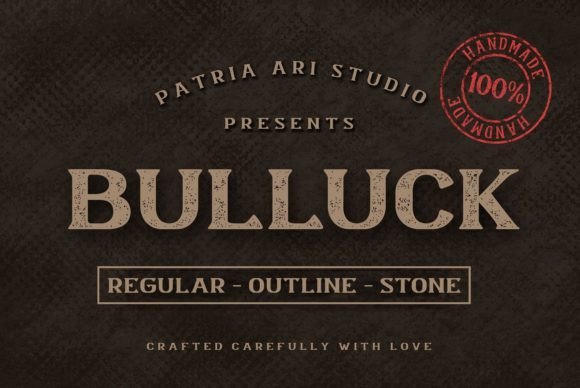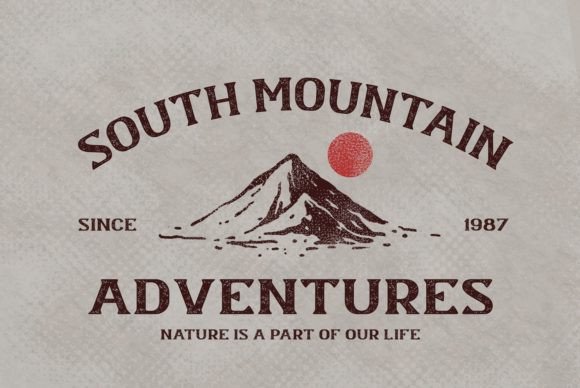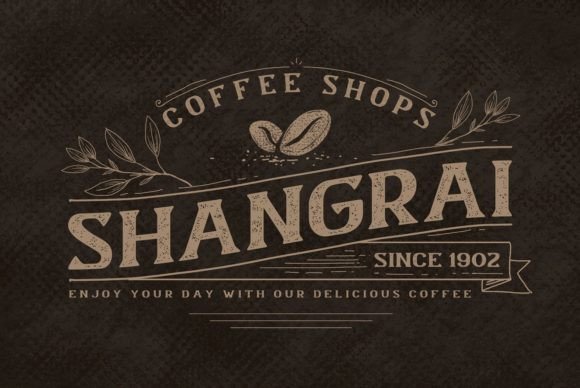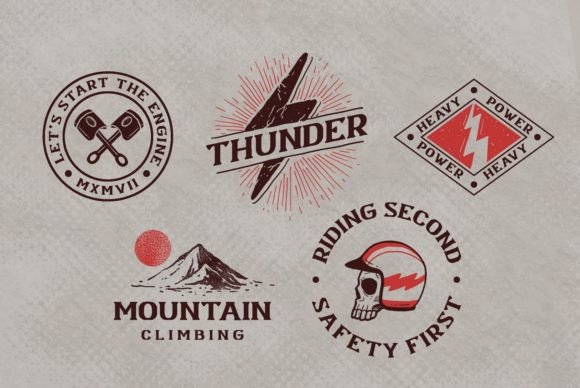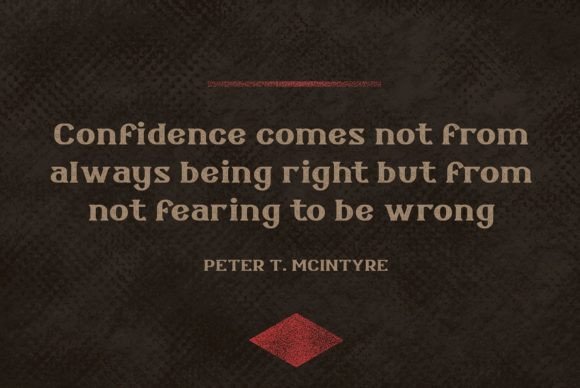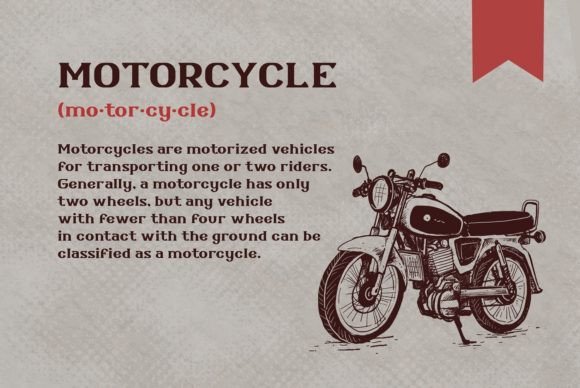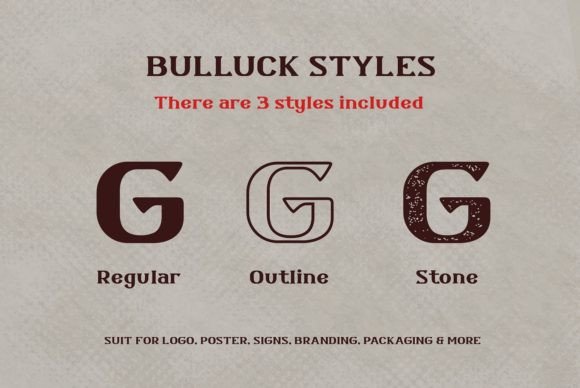
The Perfect Font for Your Next Design Project
Have you ever been stuck on a design project, staring at your computer screen, trying to find the perfect font to bring your vision to life? You know that feeling when you finally find ‘the one’ that makes everything click? For me, that moment came when I discovered the elegant and modern Bulluck Font.
Bulluck Font is more than just a font – it’s a game-changer for designers. With its minimalist and clean vibe, it can easily be applied to a wide range of designs, from book covers and magazines to social media posts and invitations. Whether you’re a seasoned pro or just starting out, this versatile font is sure to elevate your designs and leave a lasting impression.
Bulluck Font Key Features
- Unique Characteristics: Bulluck Font features a unique blend of modern and vintage elements, making it perfect for creating a distinctive and eye-catching visual identity.
- Kerning and Ligatures: Bulluck Font includes advanced kerning and ligature pairs, ensuring that text is rendered with precision and elegance.
Bulluck Font Review
I recently had the chance to work with the Bulluck font, and I must say it’s a solid addition to any designer’s toolkit. Here are my thoughts on what works well and what could be improved.
- Unique aesthetic: The Bulluck font has a distinctive, hand-drawn feel that’s perfect for adding some personality to your designs.
- Highly legible: Despite its quirky appearance, the font is surprisingly easy to read, making it a great choice for body text.
- Great for titles: The font’s bold, dramatic flair makes it ideal for headlines and titles.
- Not ideal for small text: While the font is legible, it can be difficult to read at very small sizes, which may limit its use in certain contexts.
- Lack of versatility: The font’s unique style may not be suitable for every project, and it may not be the best choice for more conservative or traditional designs.
Overall, I think the Bulluck font is a great choice for designers looking to add some visual interest to their projects. While it may not be perfect for every situation, it’s a solid addition to any font library and can help you stand out from the crowd.
Some common use cases for the Bulluck Font include:
– Creating a unique and eye-catching title or heading for a design project.
– Adding a touch of elegance and sophistication to a logo or branding design.
– Using it for quotes, captions, or other text elements that require a distinctive font style.